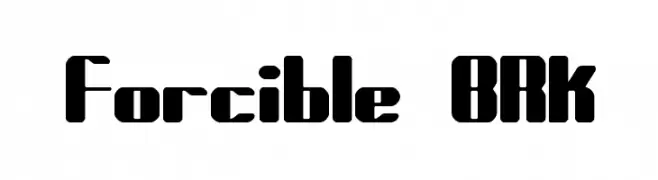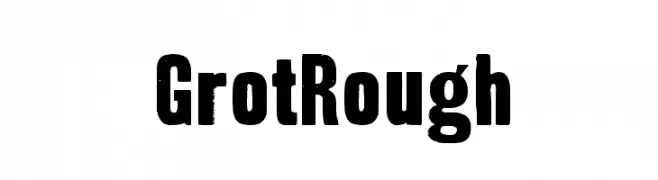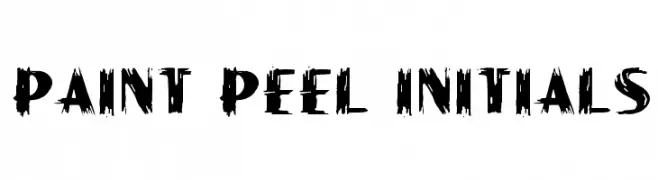
A bold, edgy font with sharp, angular strokes and an industrial feel.
A bold, distressed font with a peeling paint effect, perfect for gritty designs.
A complex, circuit-inspired font with a bold, industrial style.
A bold, hexagon-framed font with a futuristic and industrial style.